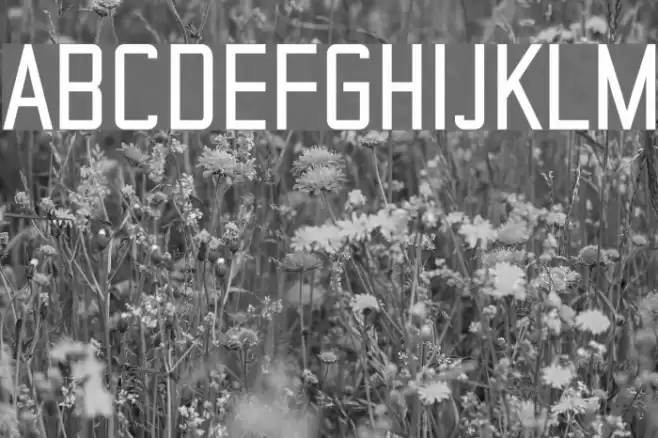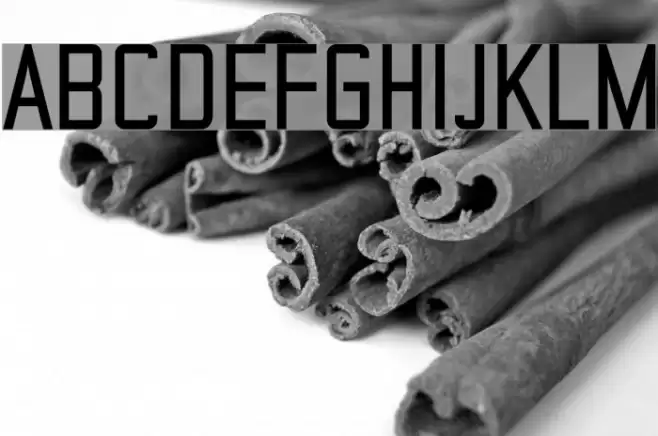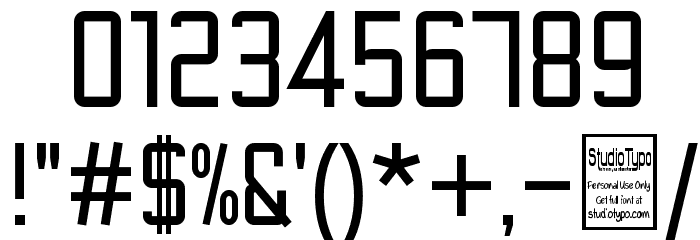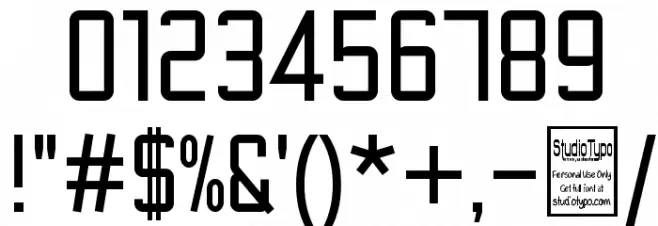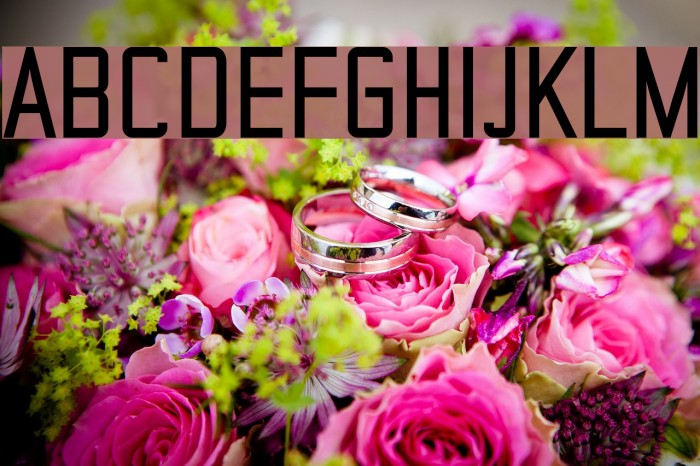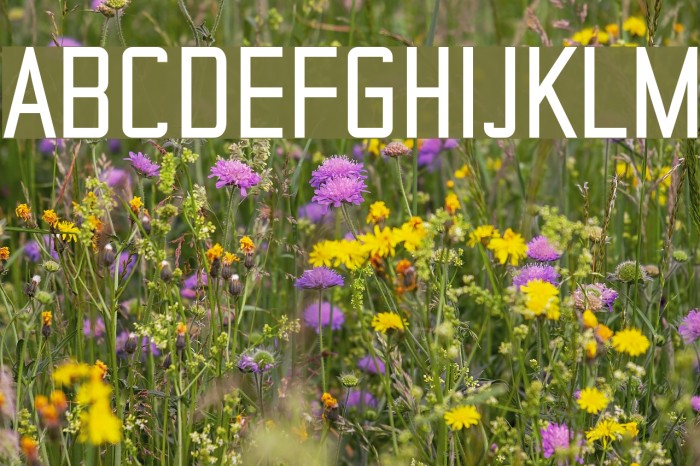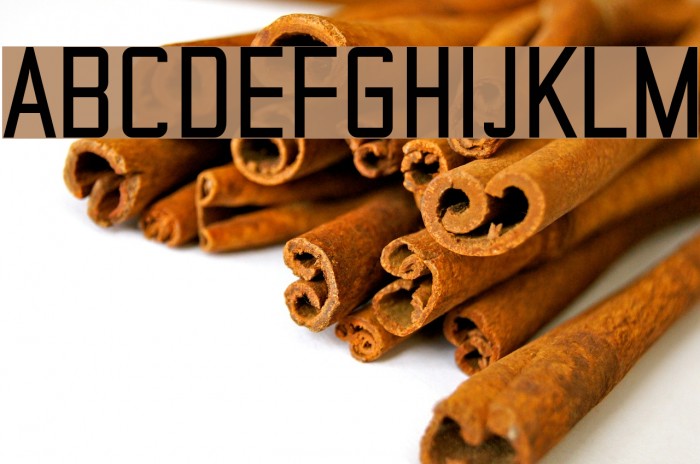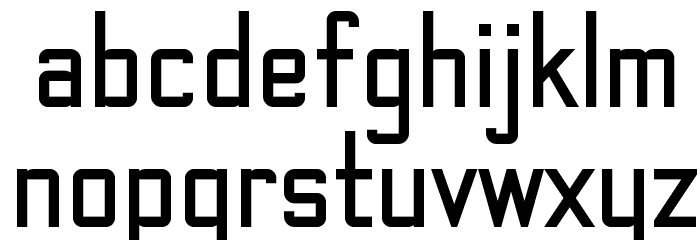
TheMatic Bold Font
TheMatic Bold Description
This font features a bold and modern design with clean, geometric lines. The uppercase and lowercase letters are well-proportioned, offering a strong visual impact. The numerals are distinct and easy to read, while the special characters maintain a consistent style. The overall appearance is sleek and contemporary, making it suitable for a variety of design applications. The characters are evenly spaced, providing a balanced and harmonious look. This font's boldness and clarity make it ideal for projects that require a strong and assertive typographic presence.
A bold, modern font with clean, geometric lines and balanced character spacing from Uncategorized fonts.
- Proposed Projects: Ideal for branding, headlines, posters, and digital media where a strong visual impact is needed.